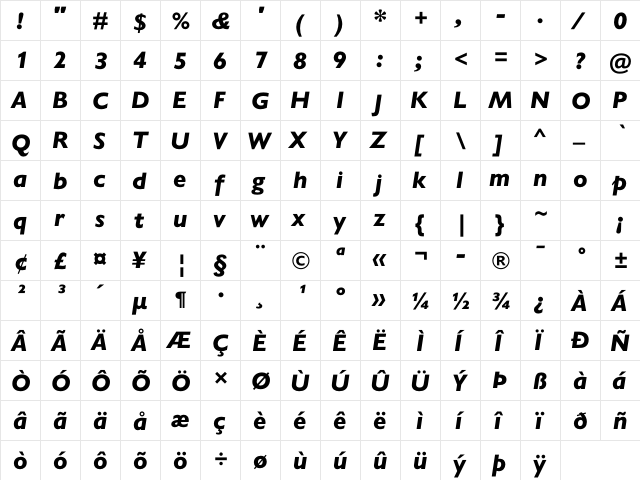
Gill Sans Nova Heavy Italic
| Foundry | Monotype Imaging Inc. |
| Designer | Geoge Ryan/Eric Gill |
Design Context for Gill Sans Nova Heavy Typeface
Gill Sans Nova Heavy takes a measured approach to typography — its balanced proportions and neutral character make it a reliable workhorse for both digital and print work. The dynamic lean of this cut emphasises speed and emphasis in any layout.
Pro Tip: Try Gill Sans Nova Heavy for annotation and caption copy alongside an upright companion — the contrast in angle creates a dynamic but ordered typographic system.